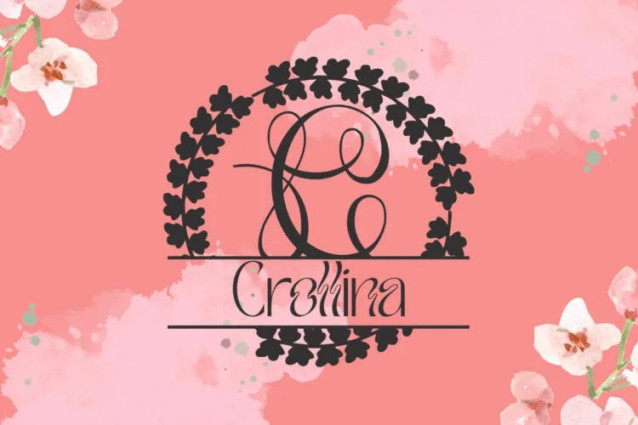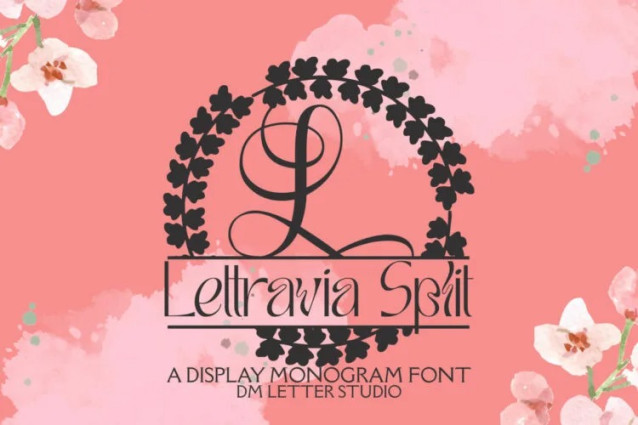
Lettravia Split Monogram Font
Lettravia Split Monogram Font turns initials into elegant nameplates in seconds. The letterforms feel refined and balanced. A clean horizontal split leaves space for names, dates, or short words. Because spacing stays even, your results look polished with very little effort. Use it for wedding gifts, family name signs, door hangers, tumblers, ornaments, and boutique packaging. Moreover, this split monogram font pairs beautifully with a simple sans or a light script, so every layout stays clear and premium.
Where this split monogram font shines
Set a single initial, then place the family name inside the split. Next, try couple names for keepsakes or venue names for signage. Since proportions favor clarity, designs scale from wall art to tiny tags. As a result, Lettravia Split Monogram Font works perfectly for Cricut, Glowforge, laser projects, and vinyl cutting.
Fast setup, premium results
Design tips for Lettravia Split Monogram
Keep the main initial large to showcase the refined structure. Place the split line at center or slightly low for balance. Meanwhile, choose a clean secondary font for the text inside the split. Because the look is airy, metallic accents and natural textures add instant value. Think champagne foil on blush card or matte black on walnut wood. However, keep names short so everything stays readable at small sizes.